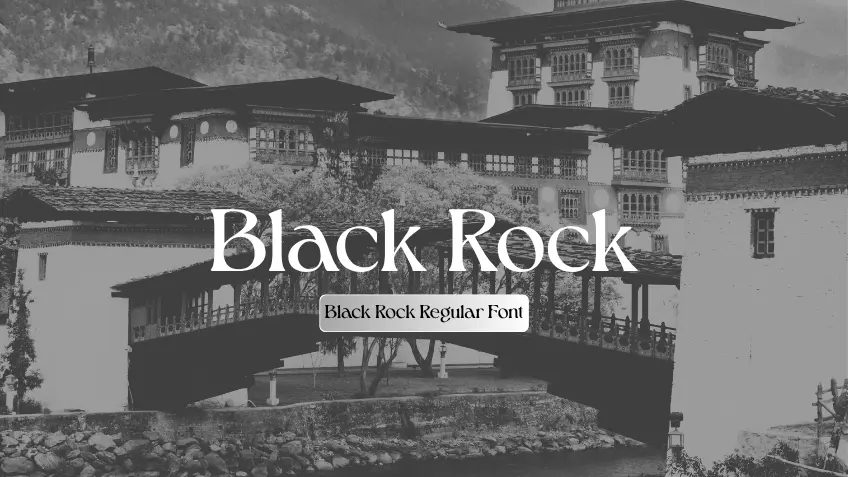
The font Black Rock Regular, designed by Viswelisted.zip, falls under the Blackletter, Display, Serif category & Black Rock font family. Its smooth, flowing letterforms make it a versatile choice for projects that require both elegance and readability. Black Rock is particularly well-suited for Branding, Packaging, Heading, Titles, Editorial Design and Logos. With its balance of simplicity and decorative appeal, this font brings a polished touch to both personal and professional designs.